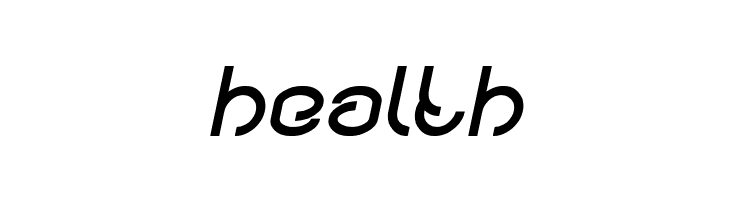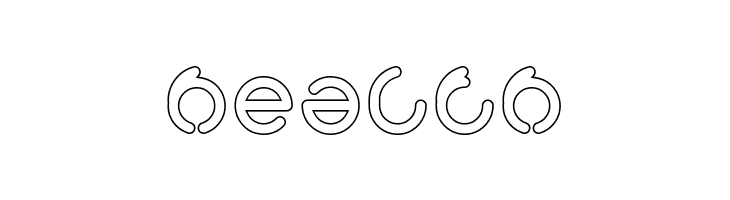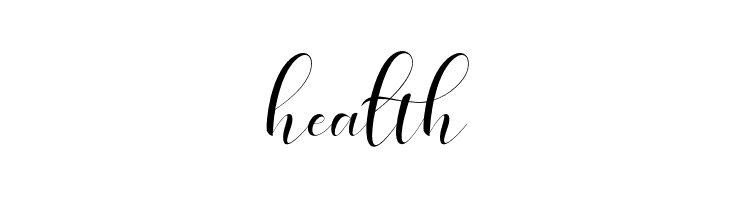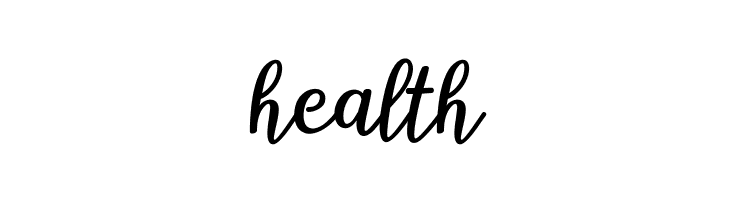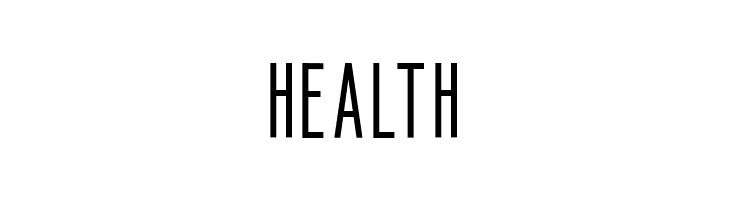
A modern, elegant script font with a flowing, handwritten style.
A modern, cursive font with elegant, flowing lines and a handwritten feel.
A sleek, modern font with clean lines and a minimalistic design.
A charming and elegant script font with flowing, cursive letterforms.
A modern italic font with smooth curves and a dynamic slant.
A futuristic, hollow font with geometric and symmetrical design.
A playful, handwritten font with tall, narrow letters and a casual style.
A graceful and elegant script font with flowing, connected letterforms.
A flowing, cursive font with elegant, connected letters and a handwritten feel.
A modern, sleek font with tall, narrow characters and consistent stroke width.